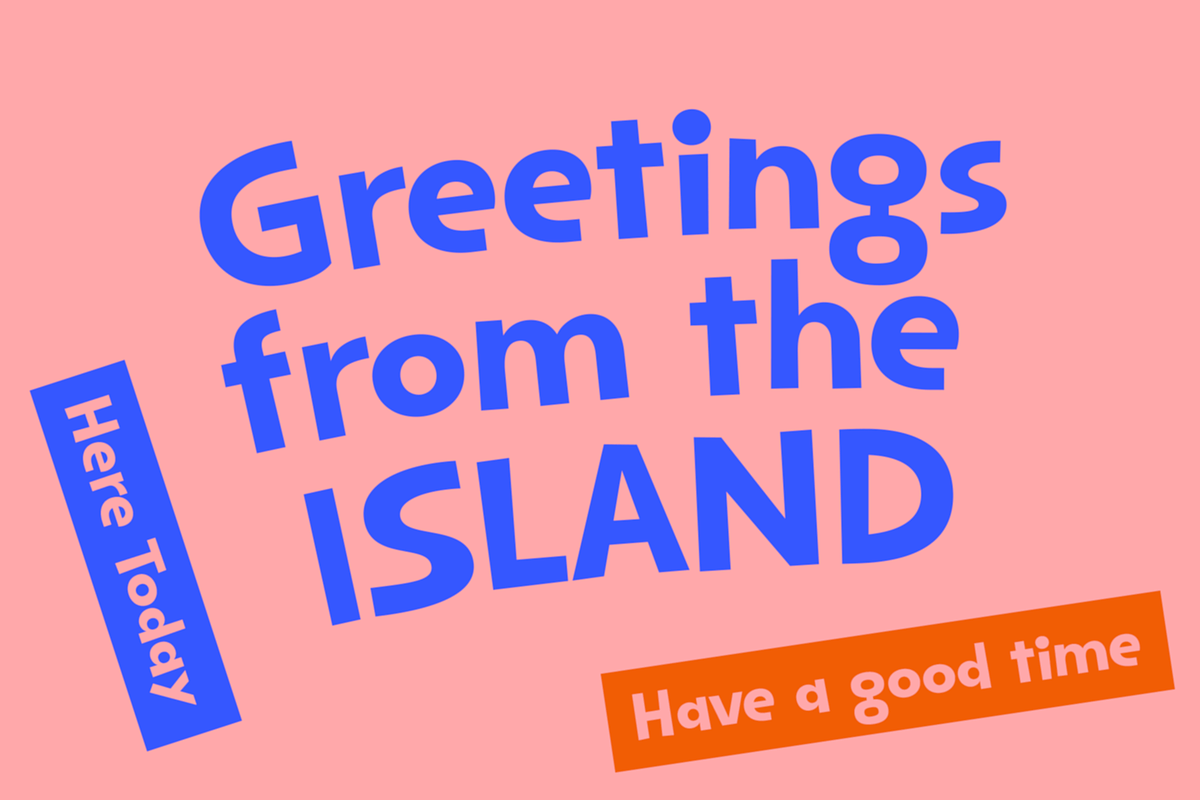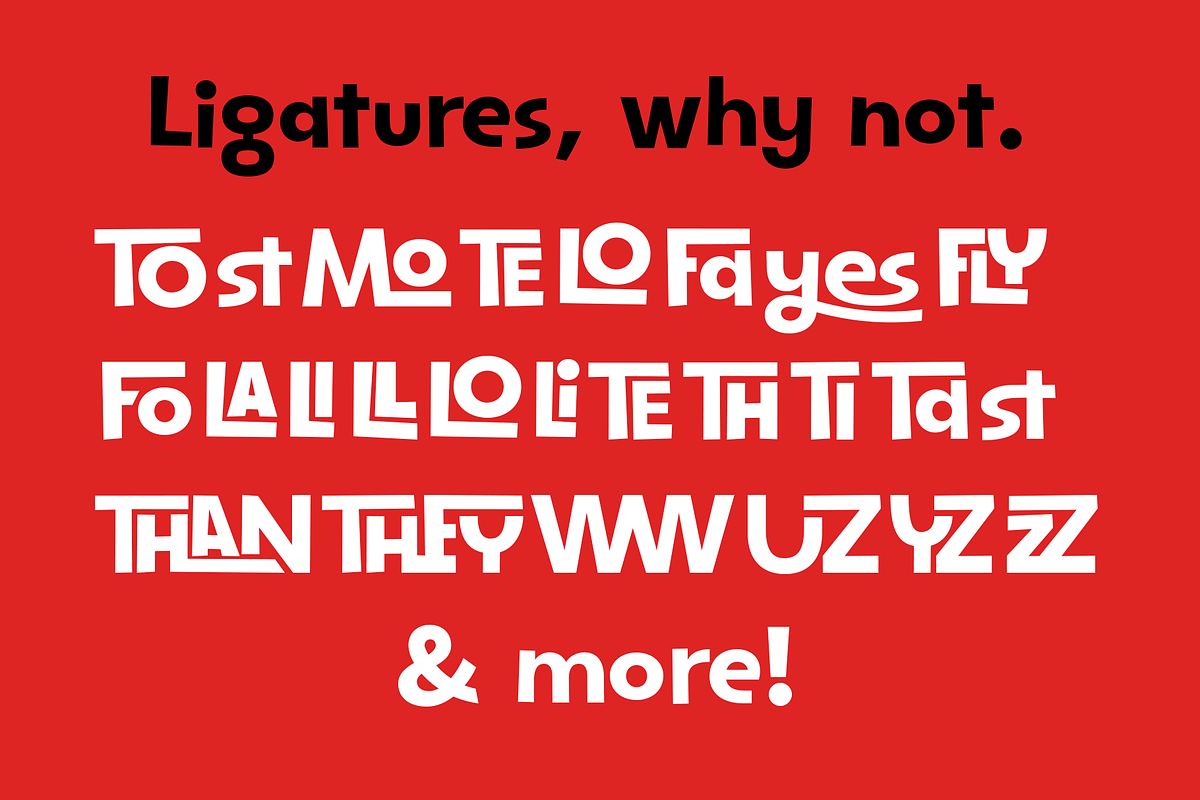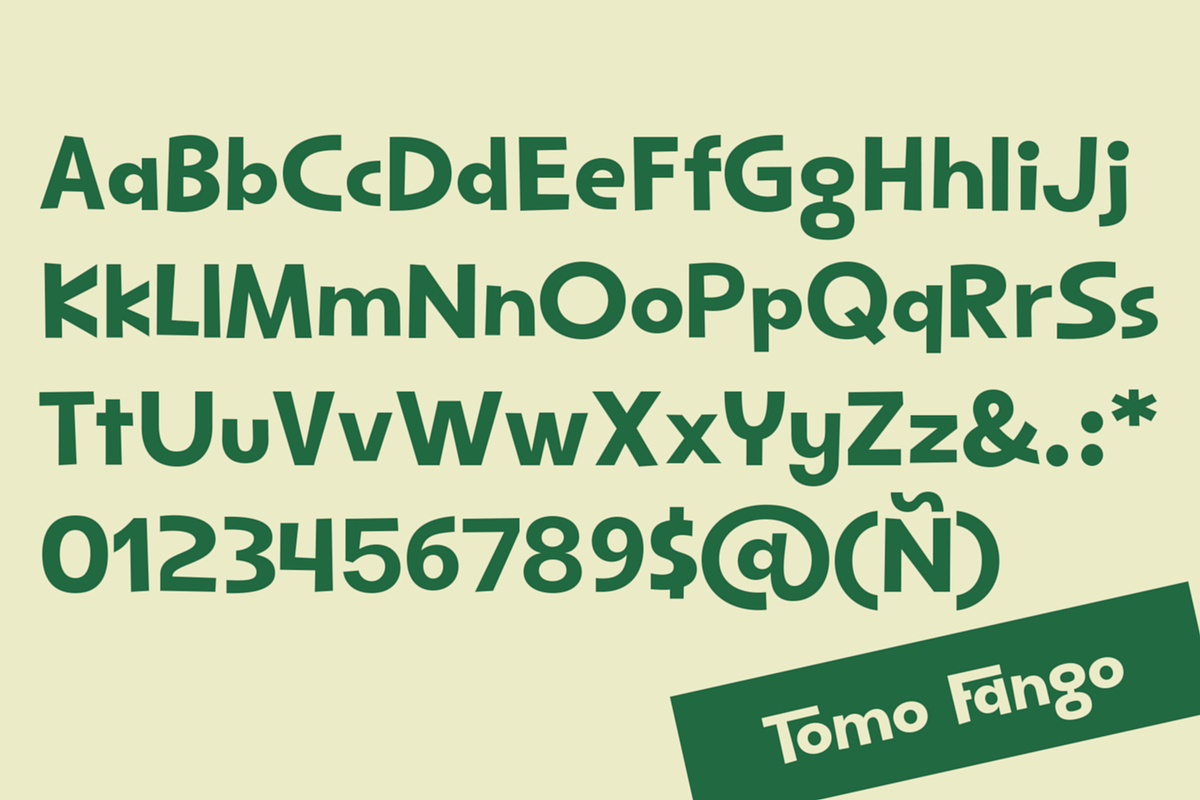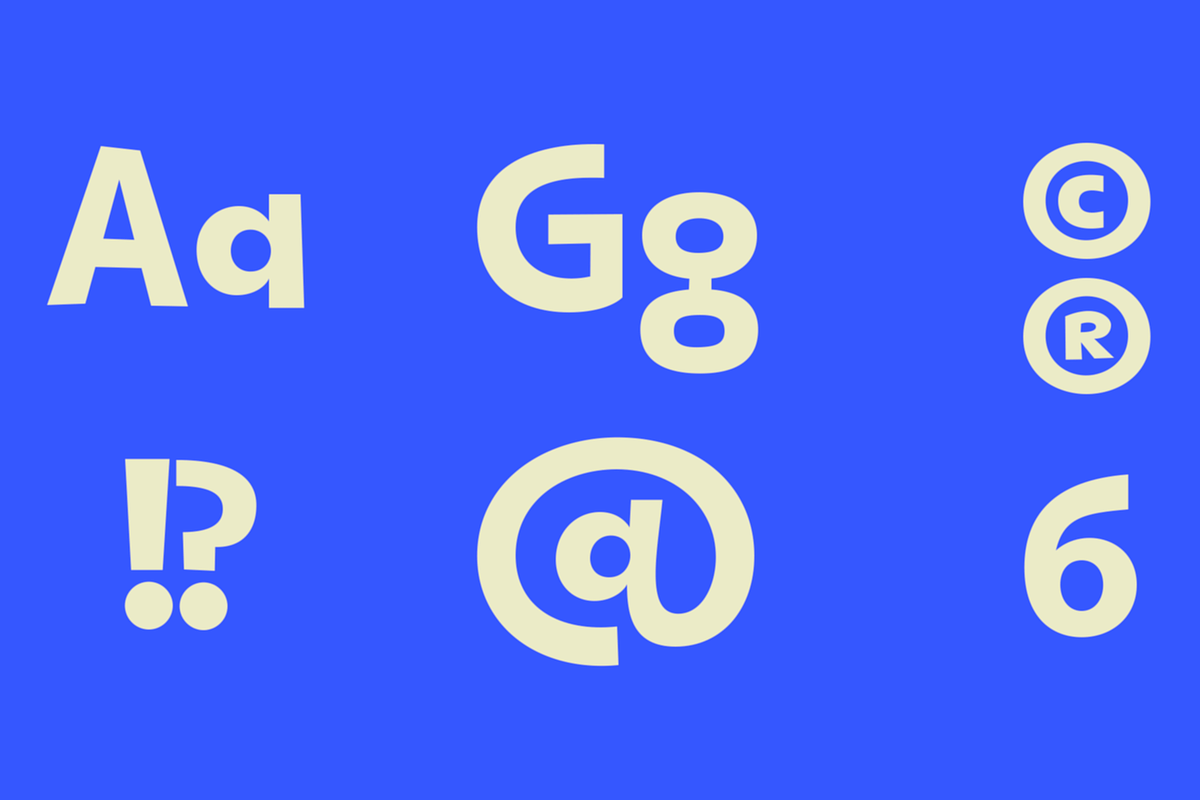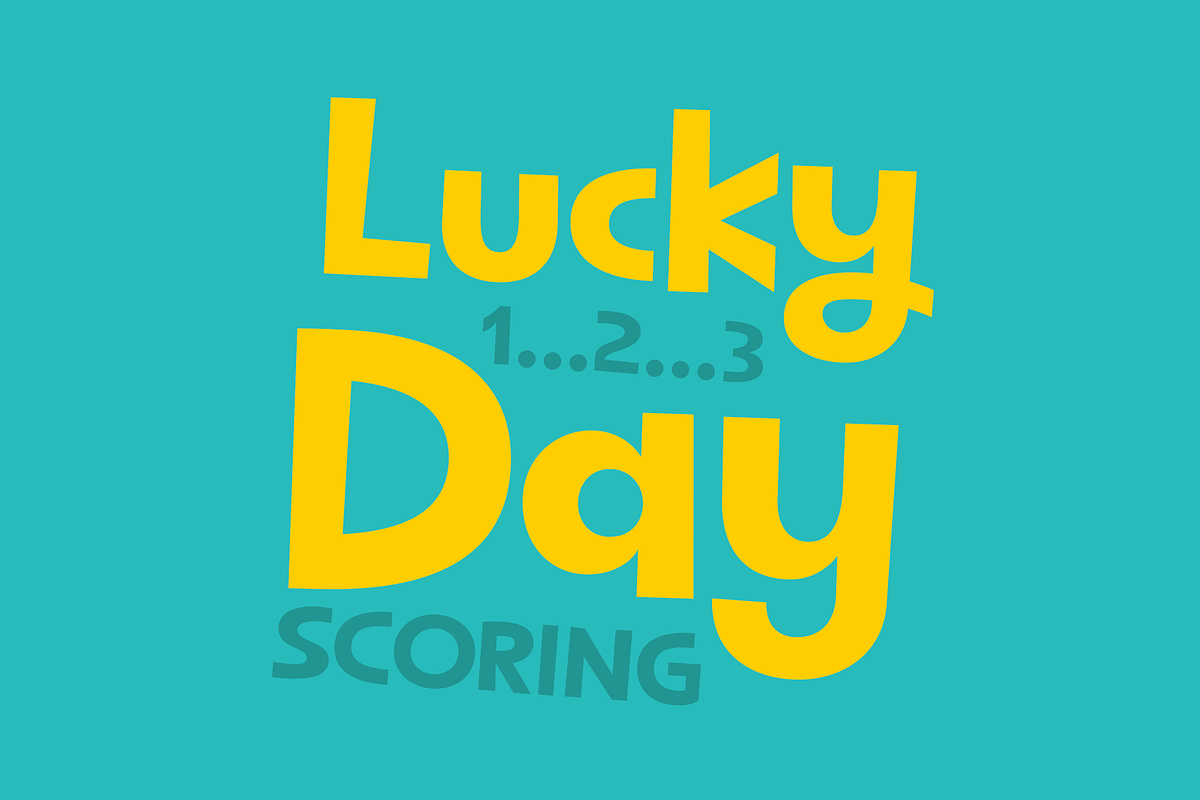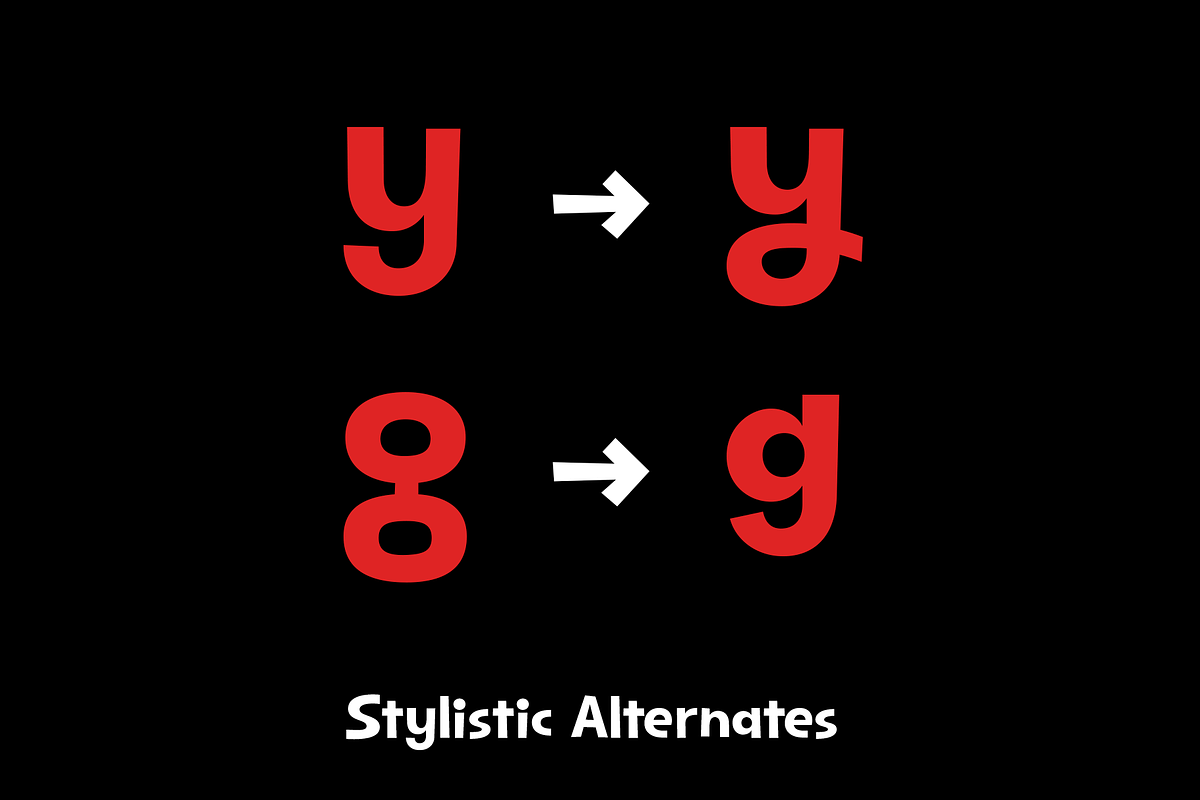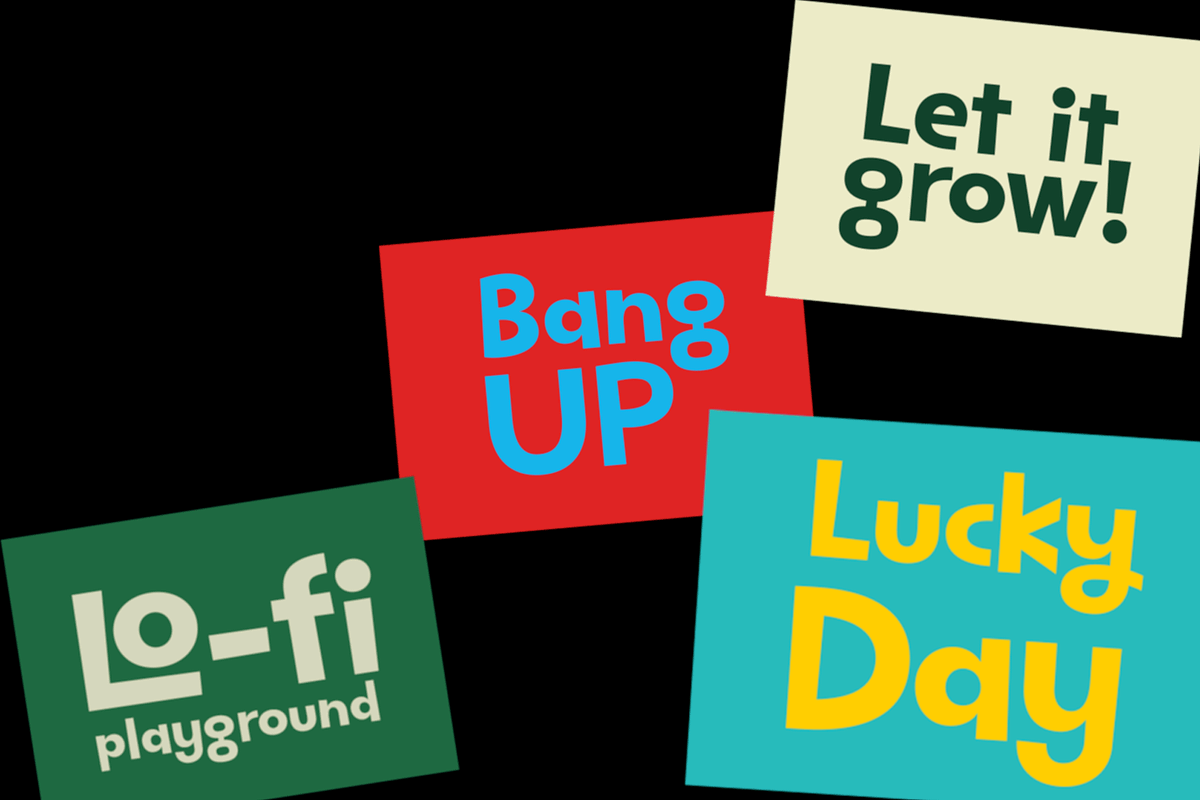
TOMO Fango
A sans serif typeface, designed to speak very happy and friendly. by TOMO FONTS.
Why TOMO Fango is worth a look
TOMO Fango by TOMO Fonts fits naturally into Branding, posters, packaging, typography.